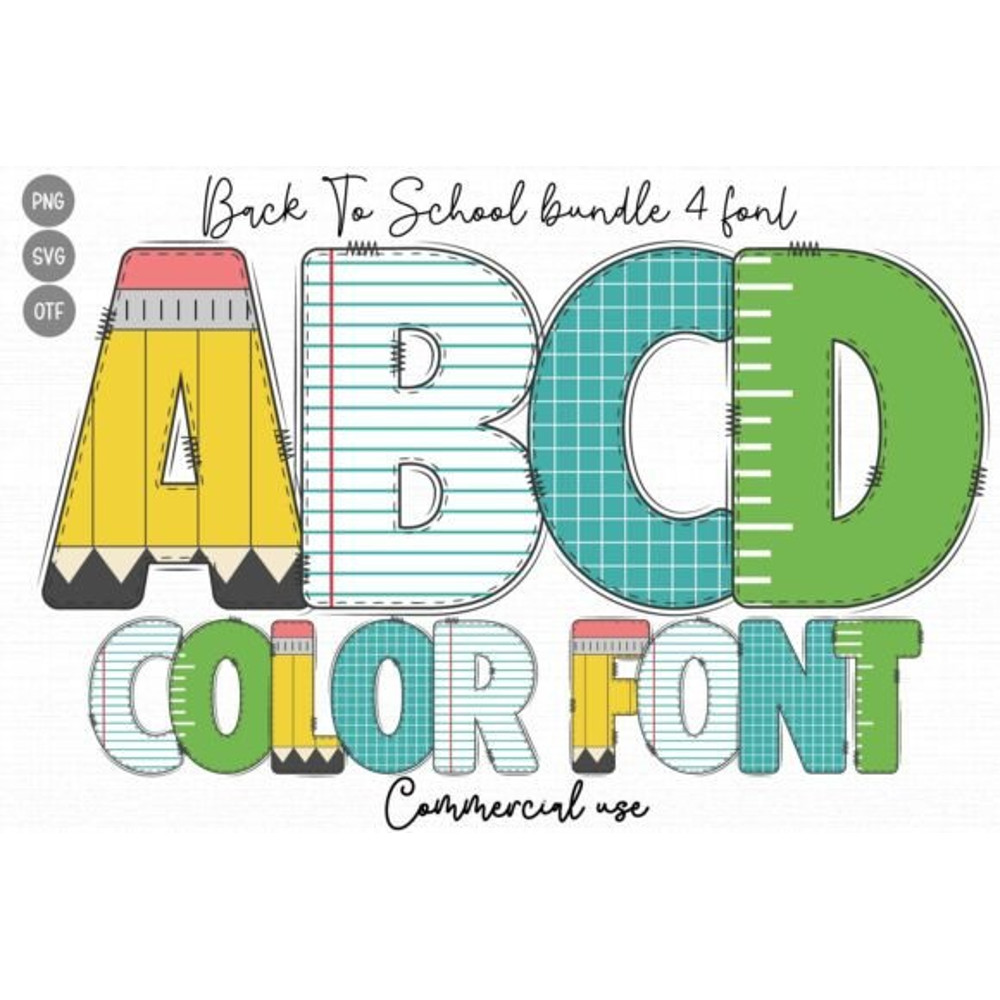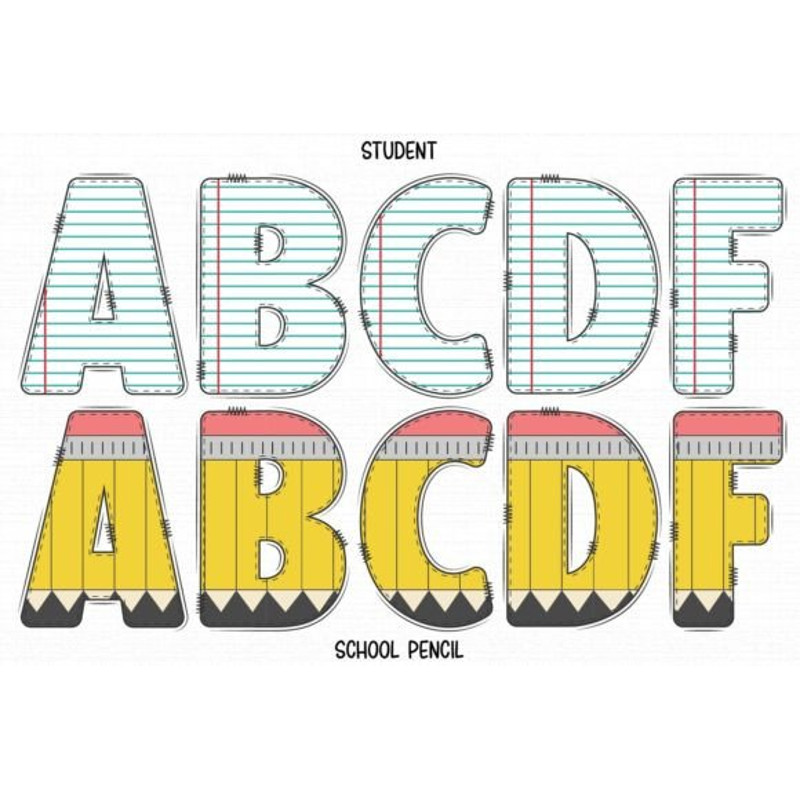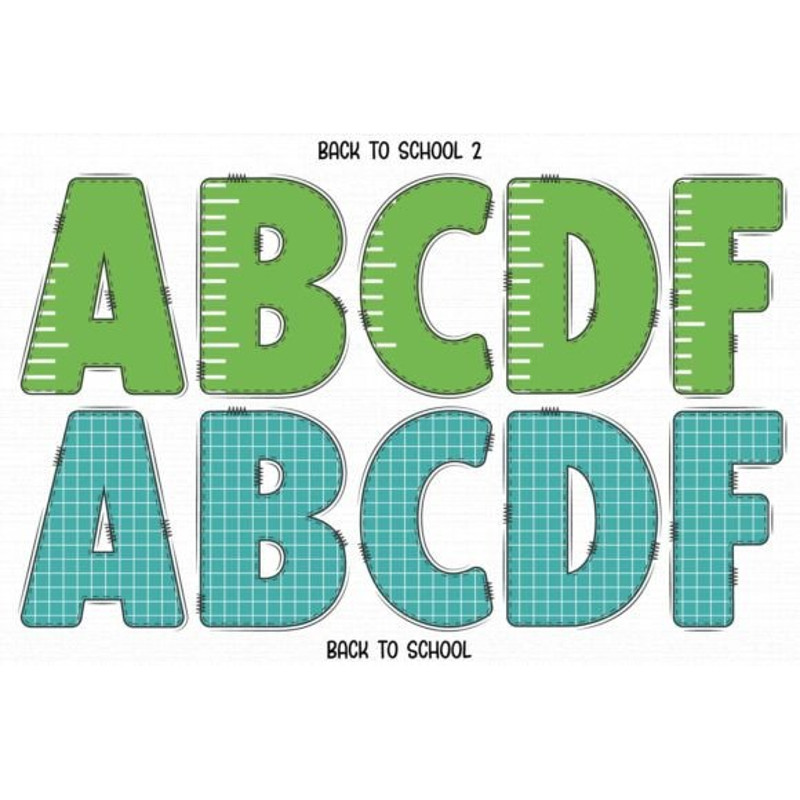
Back To School is a thick lettered and incredibly unique color font. It can be used for various design ideas, particularly those related to children’s games and school.